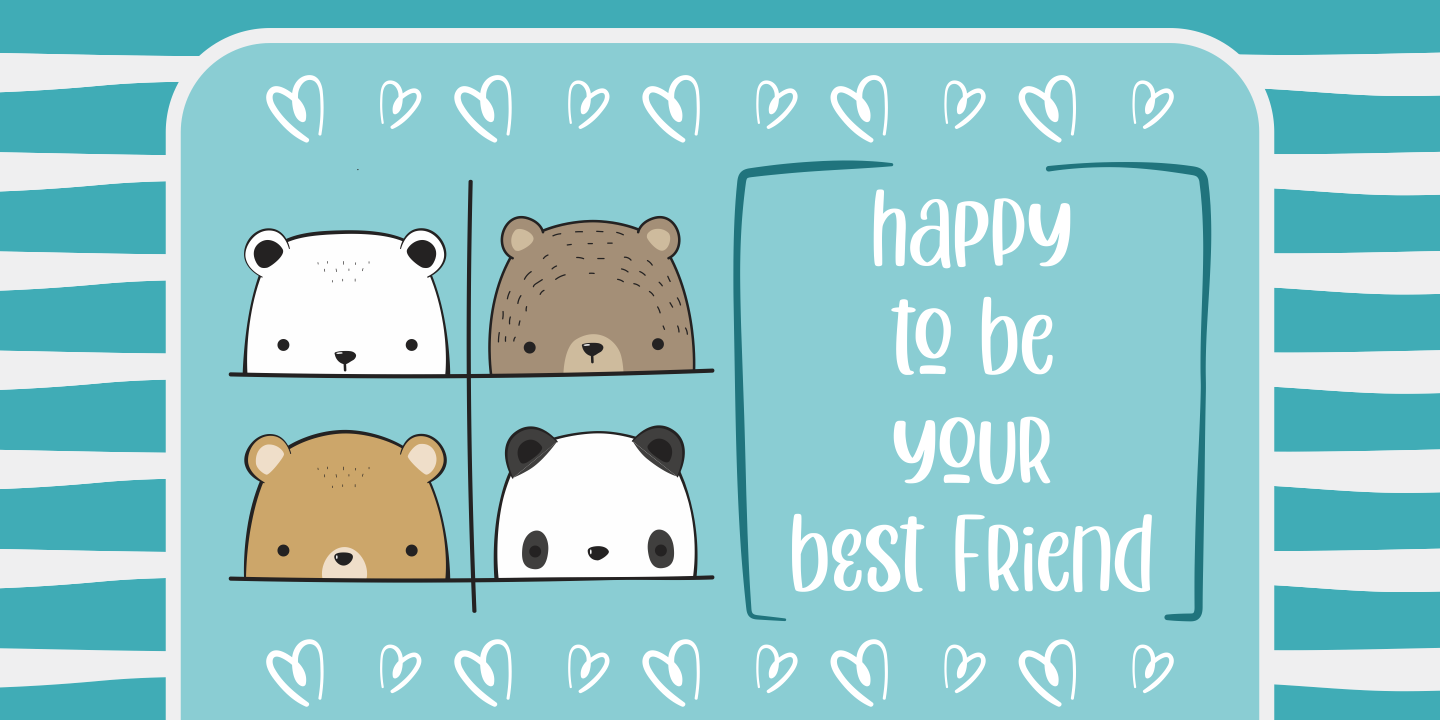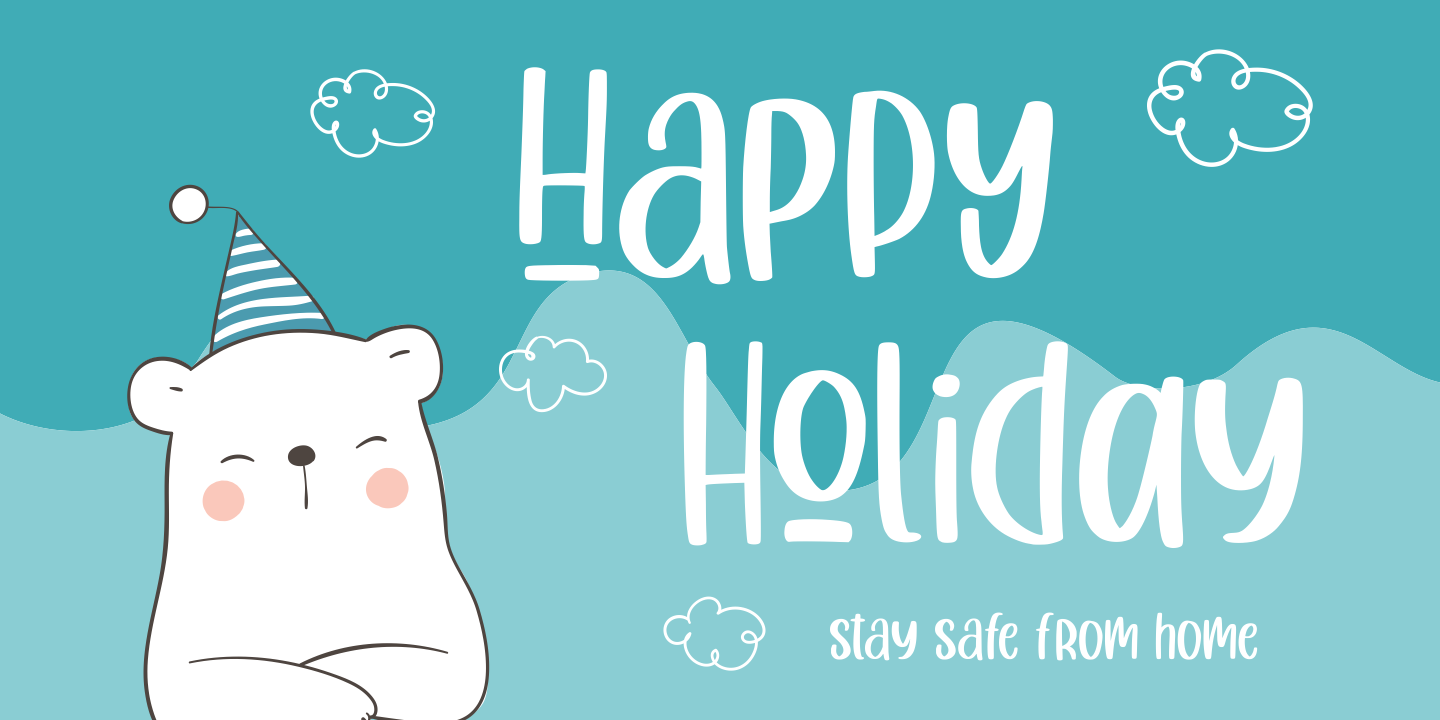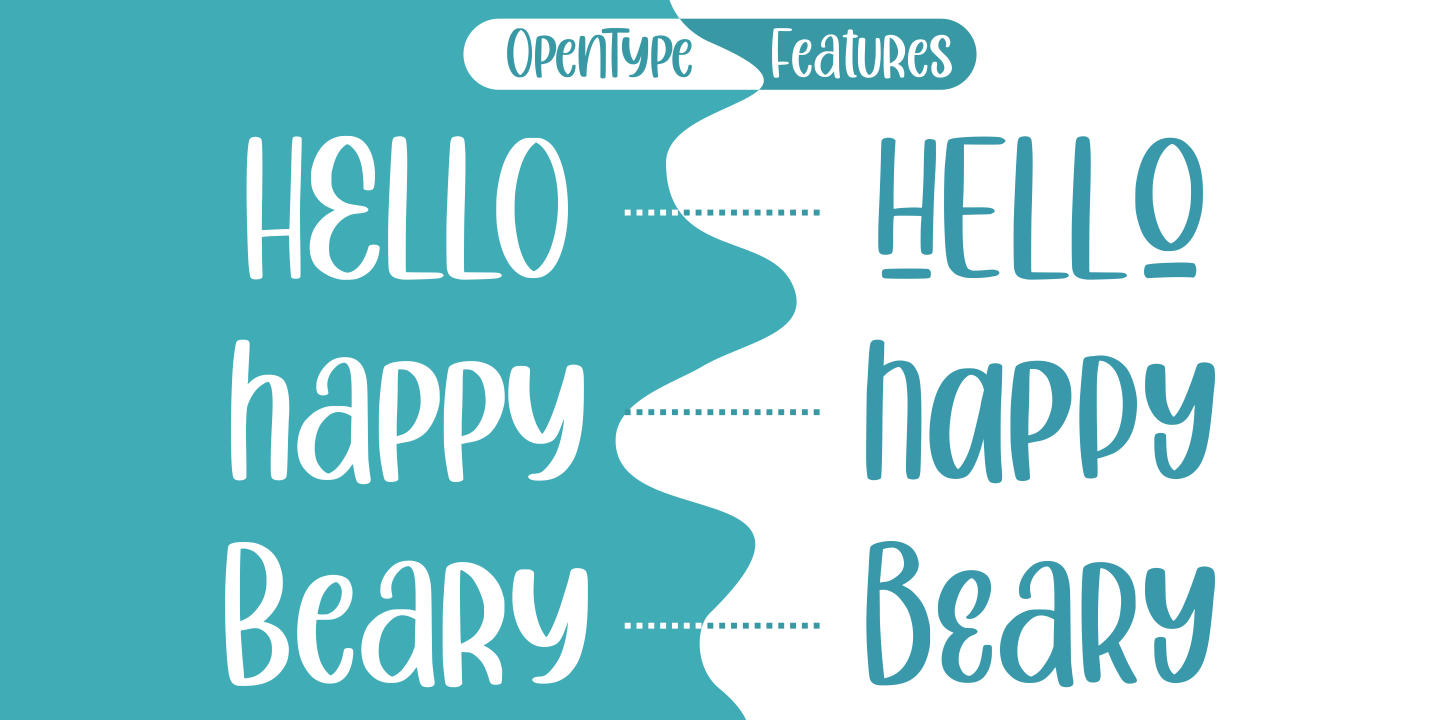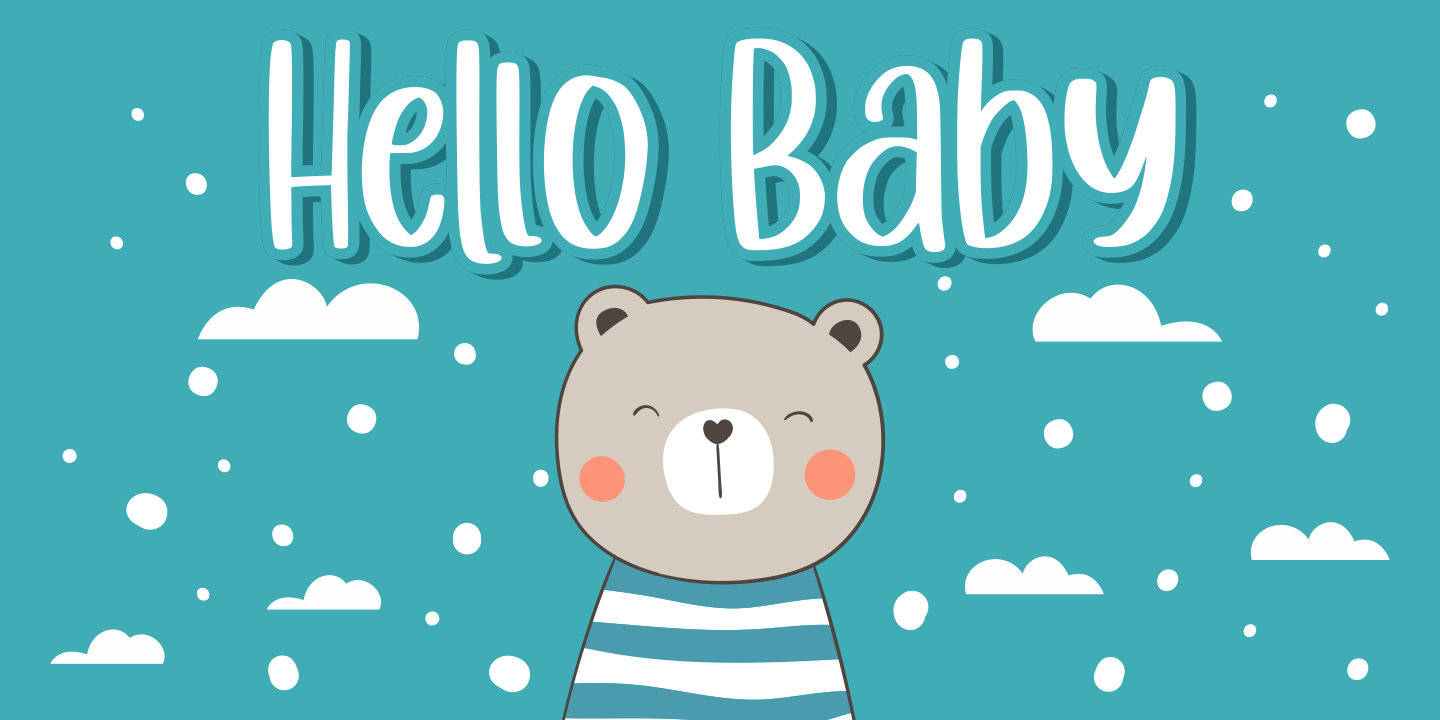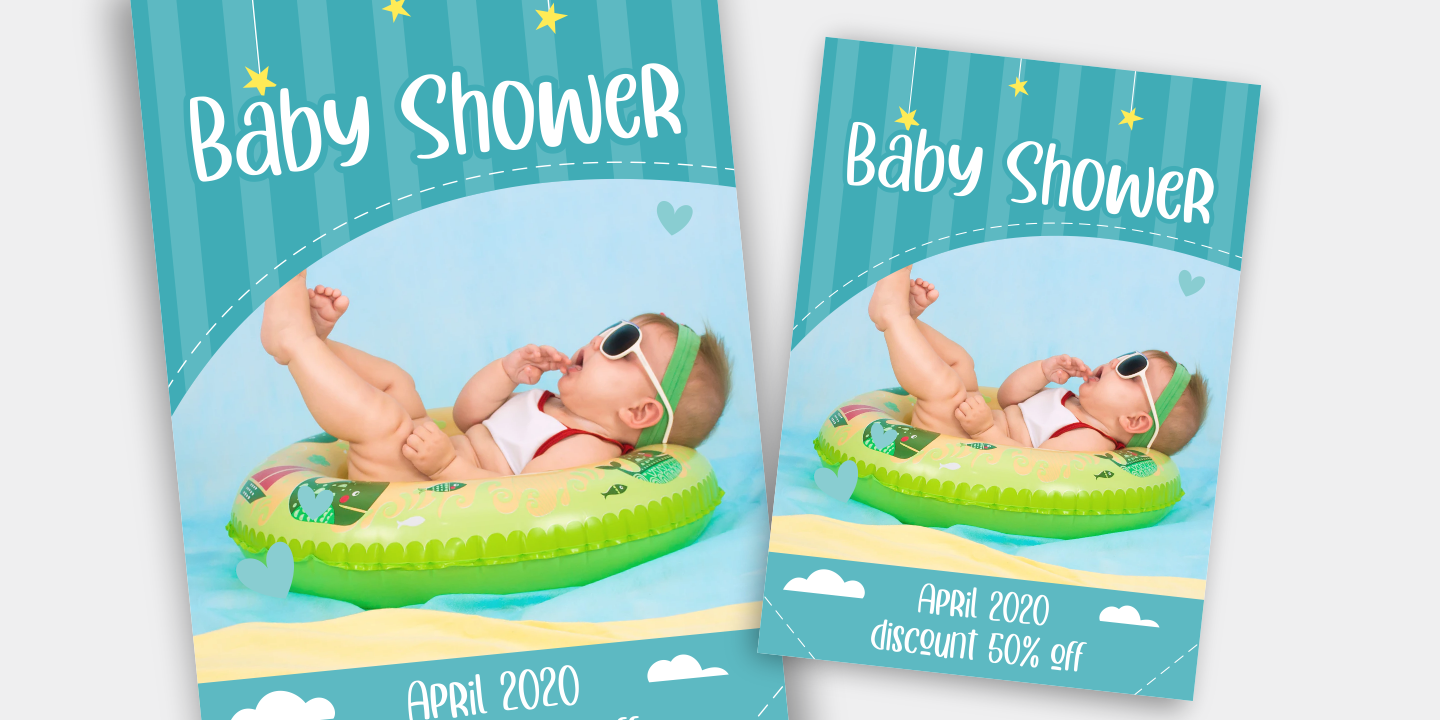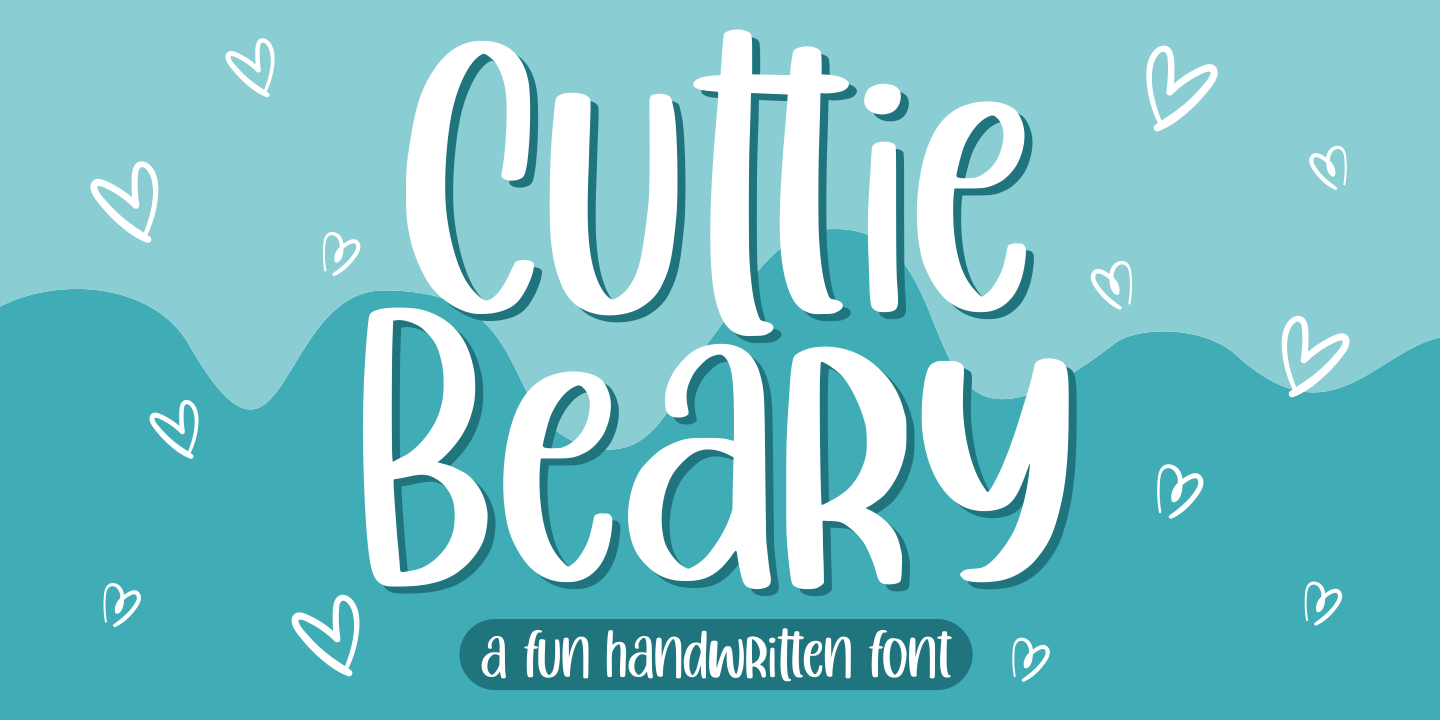
Introducing Cuttie Beary - Fun Handwritten Font
Cuttie Beary is the perfect font for all your fun designs. The main font file is equipped with ordinary characters. Everything is made with a funny brush so you can be sure all leters will work well together! It is suitable for you to use in making t-shirt design, quote, labels, packaging, logo types, or long writing because we have compiled kerning and matrices that are tailored to your needs.